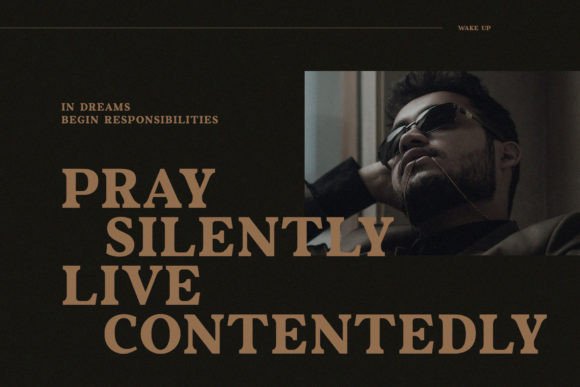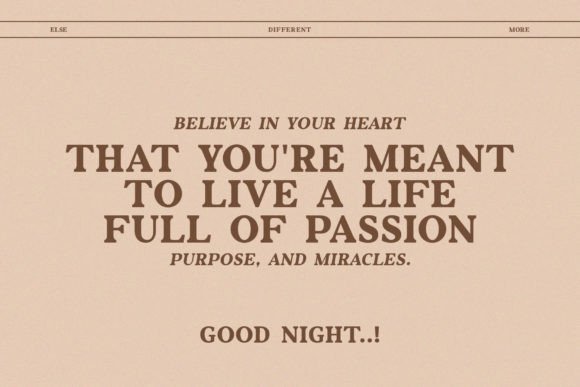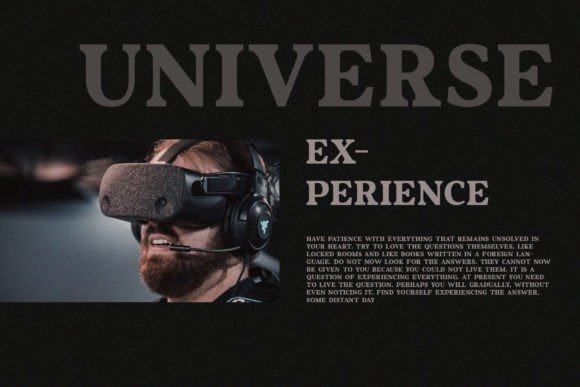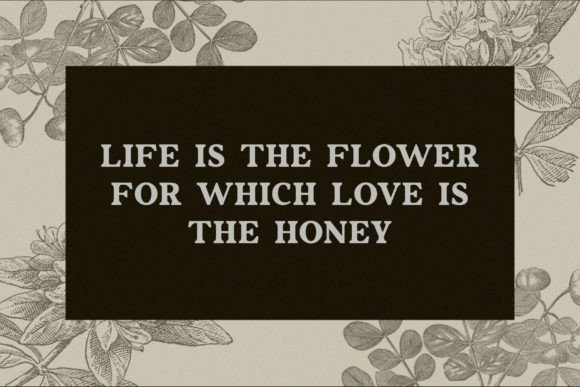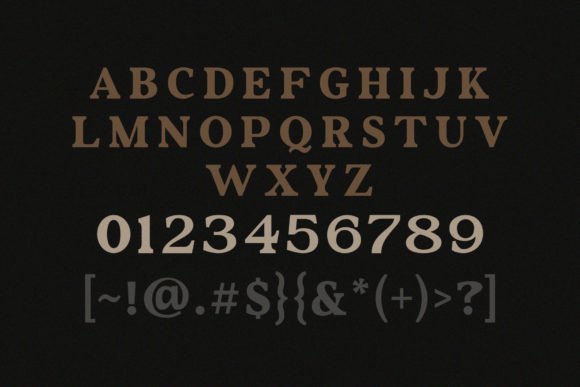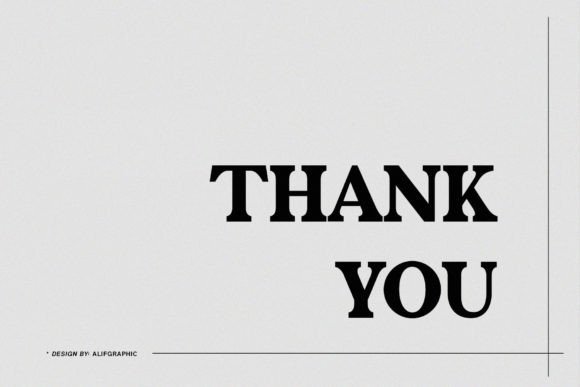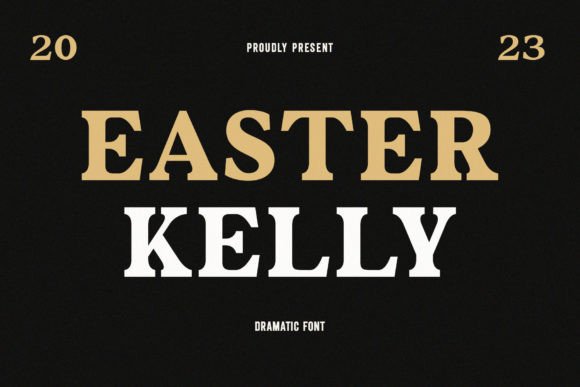
Easter Kelly Font: Elevate Your Designs with Modern Elegance
Are you on the hunt for a font that embodies modern sophistication with a touch of elegance? Look no further than the Easter Kelly Font. This beautiful series of letters is designed to meet your modern writing needs while pleasing the eye with its neat and elegant lettering. In this article, we’ll dive into the features and benefits of the Easter Kelly Font, perfect for designers, crafters, and anyone looking to elevate their creative projects.
The Essence of Easter Kelly Font
The Easter Kelly Font is a stunning addition to any design project, offering a modern impression without losing sight of elegance. Its neat and clean lettering makes it an ideal choice for a wide range of applications, from digital content creation to print materials. Whether you’re working on a branding project, crafting a unique invitation, or simply looking for a stylish font for your blog, Easter Kelly Font is sure to impress.
Key Features of Easter Kelly Font
- Modern and Elegant: Easter Kelly Font strikes the perfect balance between modernity and elegance, making it versatile for various design needs.
- Neat Lettering: The font’s clean and neat lettering ensures that your text is easy to read while still standing out with style.
- Multipurpose: From digital projects to print materials, Easter Kelly Font adapts seamlessly, ensuring your designs look great across all platforms.
Creative Possibilities with Easter Kelly Font
The Easter Kelly Font opens up a world of creative possibilities. Here are a few ideas to get you started:
- Branding and Logos: Create a memorable brand identity with custom logos and wordmarks.
- Stationery and Invitations: Add a touch of elegance to your cards, invitations, and letterheads.
- Digital Content: Enhance your blog posts, social media graphics, and website content with stylish text.
- Crafting and DIY Projects: Perfect for scrapbooking, making custom vinyl decals, or creating personalized gifts.
Why Choose Easter Kelly Font?
In a world where typography plays a crucial role in design, the Easter Kelly Font stands out for its unique blend of modernity and elegance. Its versatility, ease of use, and the creative possibilities it offers make it an excellent choice for designers and crafters alike. Whether you’re looking to elevate your professional design work or add a personal touch to your DIY projects, Easter Kelly Font is sure to meet your needs.
Easter Kelly Font is more than just a series of letters; it’s a tool for creative expression. With its modern yet elegant design, it offers endless possibilities for those looking to add a touch of sophistication to their work. By choosing Easter Kelly Font, you’re not just selecting a font; you’re investing in a versatile design asset that will enhance your projects and make them stand out. So, unleash your creativity and make the most of this beautiful font to create designs that are both modern and timeless.